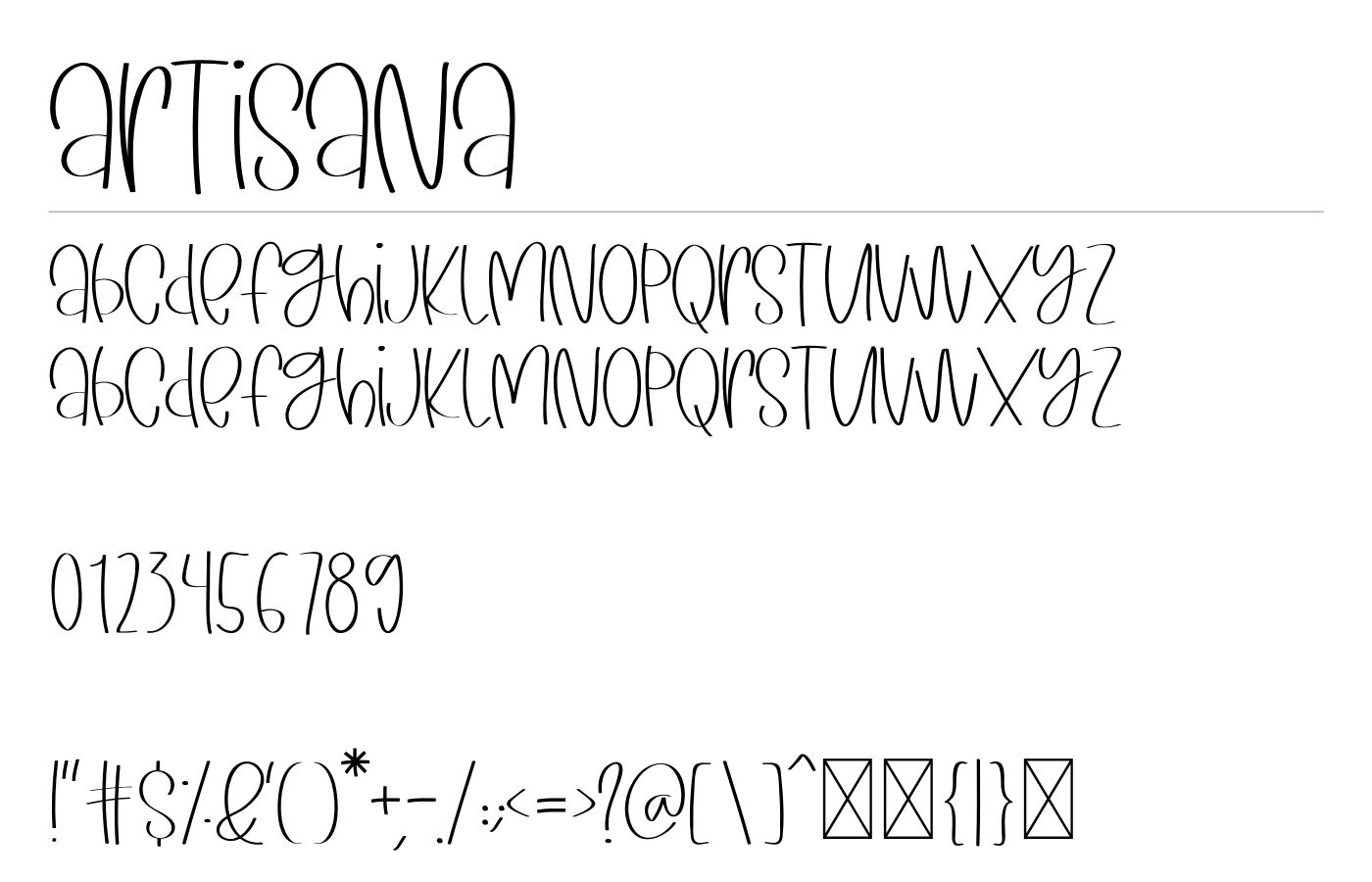
Artisana is a slender, whimsical handwritten font characterized by its tall, narrow letterforms and playful, fluid strokes that evoke a casual, artistic vibe. Its light weight and airy spacing make it ideal for creative projects, inviting a friendly and approachable feel, perfect for branding, invitations, and editorial uses where a unique personal touch is desired.
Artisana Font
About Artisana Font